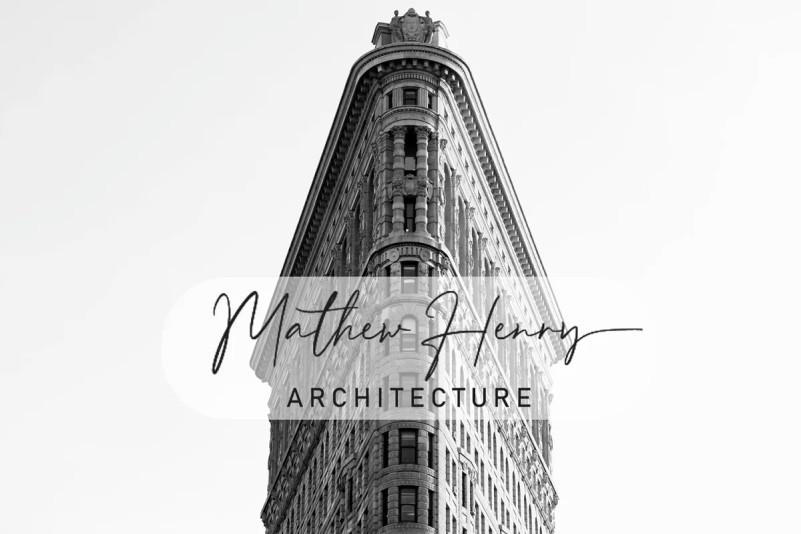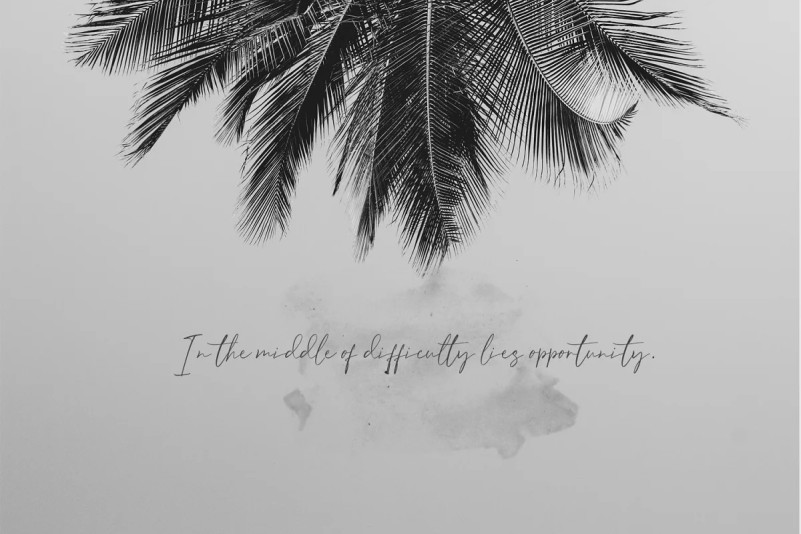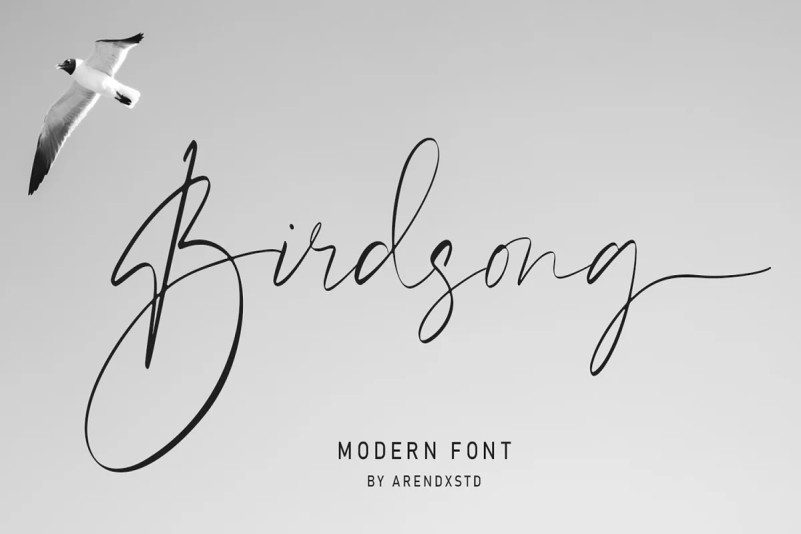
Birdsong Font
Introducing my latest font is Birdsong Script Font, a handwritten font which is very elegant and modern for you to use and your design interests be it for logos, branding names, posters, podcasts and so on. This is perfect for you all.